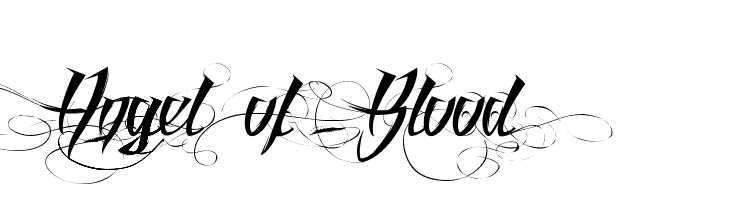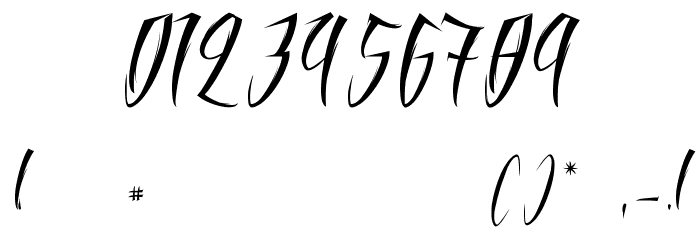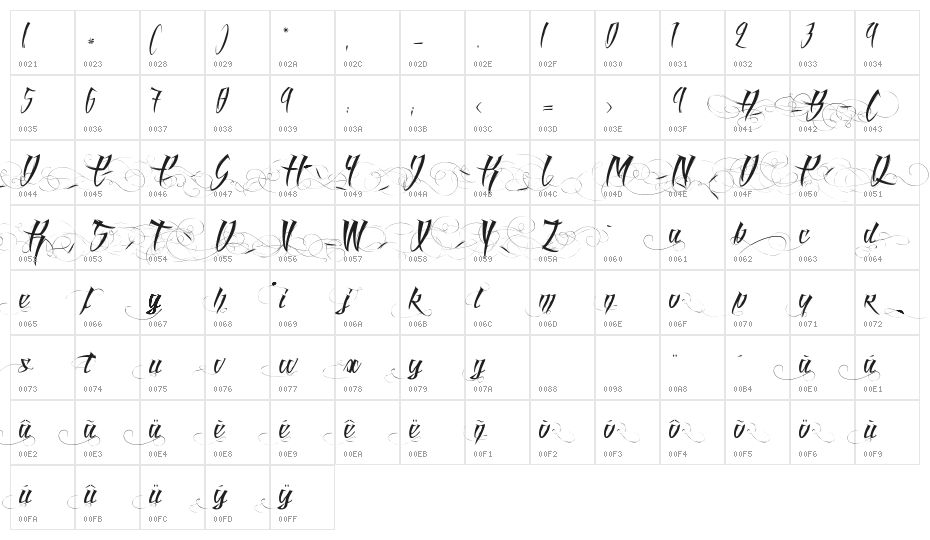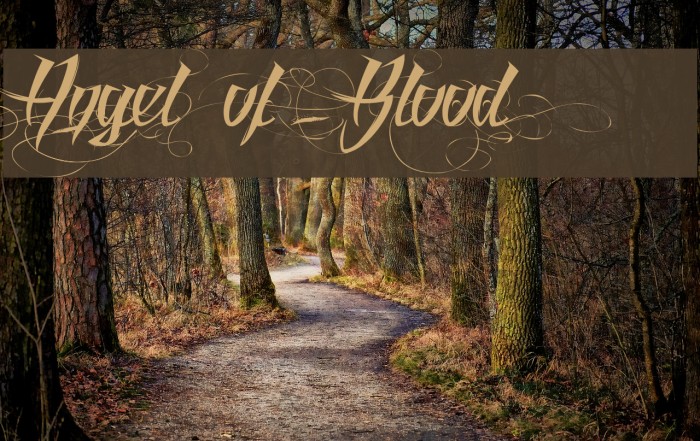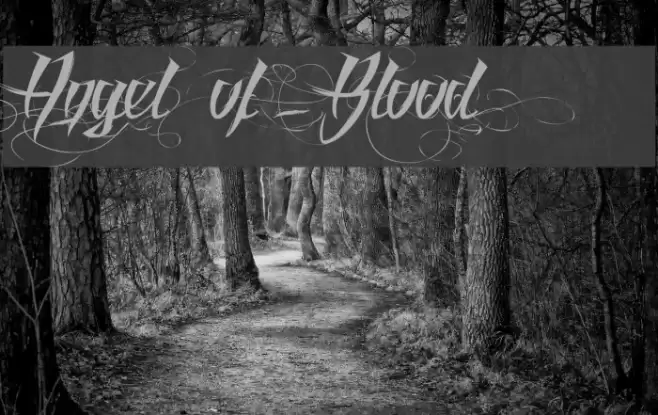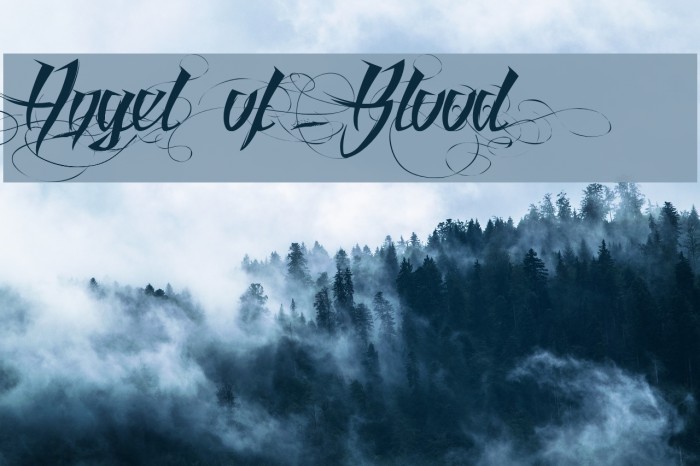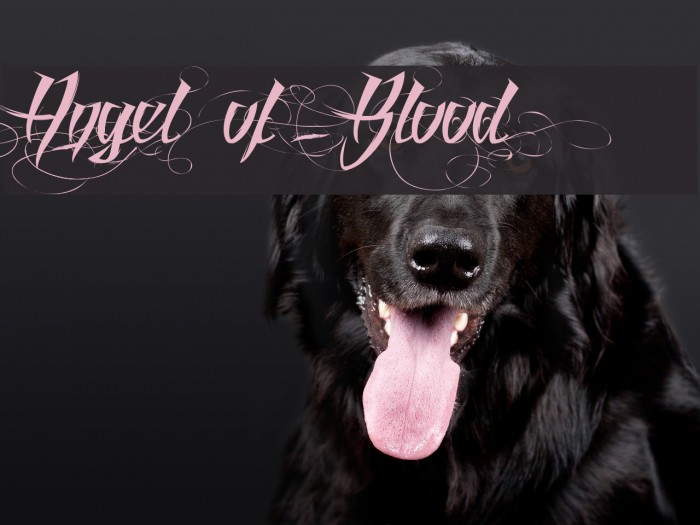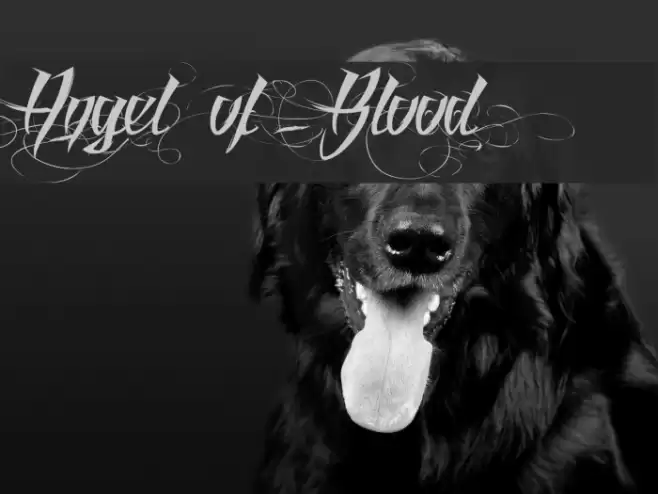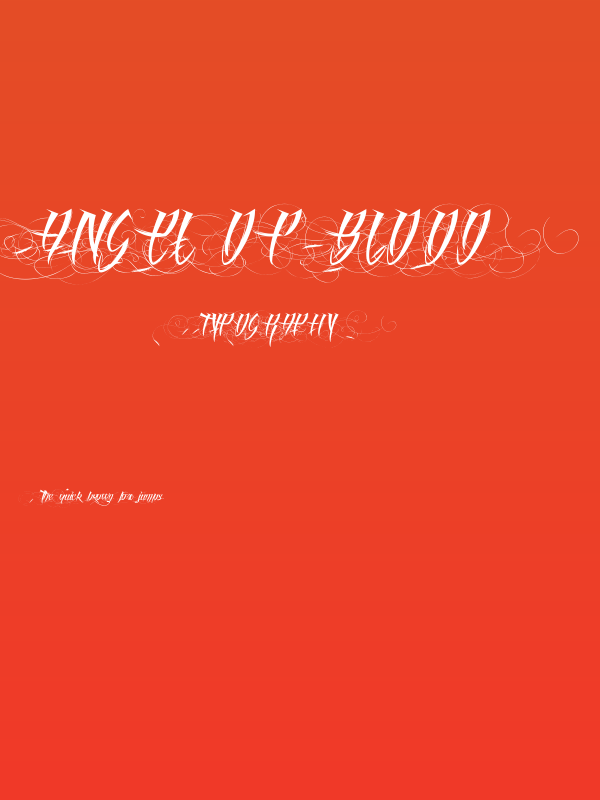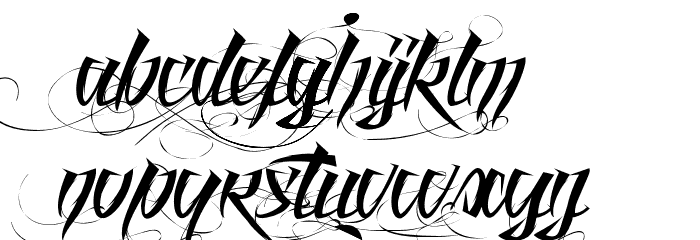
Angel of Blood Font
Angel of Blood Description
This font is a highly decorative and intricate script style, characterized by its elaborate swirls and flourishes that extend from each letter. The uppercase letters are particularly ornate, with dramatic loops and curves that give a sense of elegance and grandeur. The lowercase letters maintain a consistent style, with a slightly more restrained use of embellishments, yet still retaining an artistic flair. The numbers and special characters follow the same decorative theme, ensuring a cohesive look across all elements. This font is best suited for projects that require a touch of sophistication and drama, such as invitations, logos, or branding materials where a statement is needed.
Use CaseLogos, Invitations, Artistic Projects
Proposed ProjectsIdeal for wedding invitations, luxury branding, artistic posters, and elegant logos.